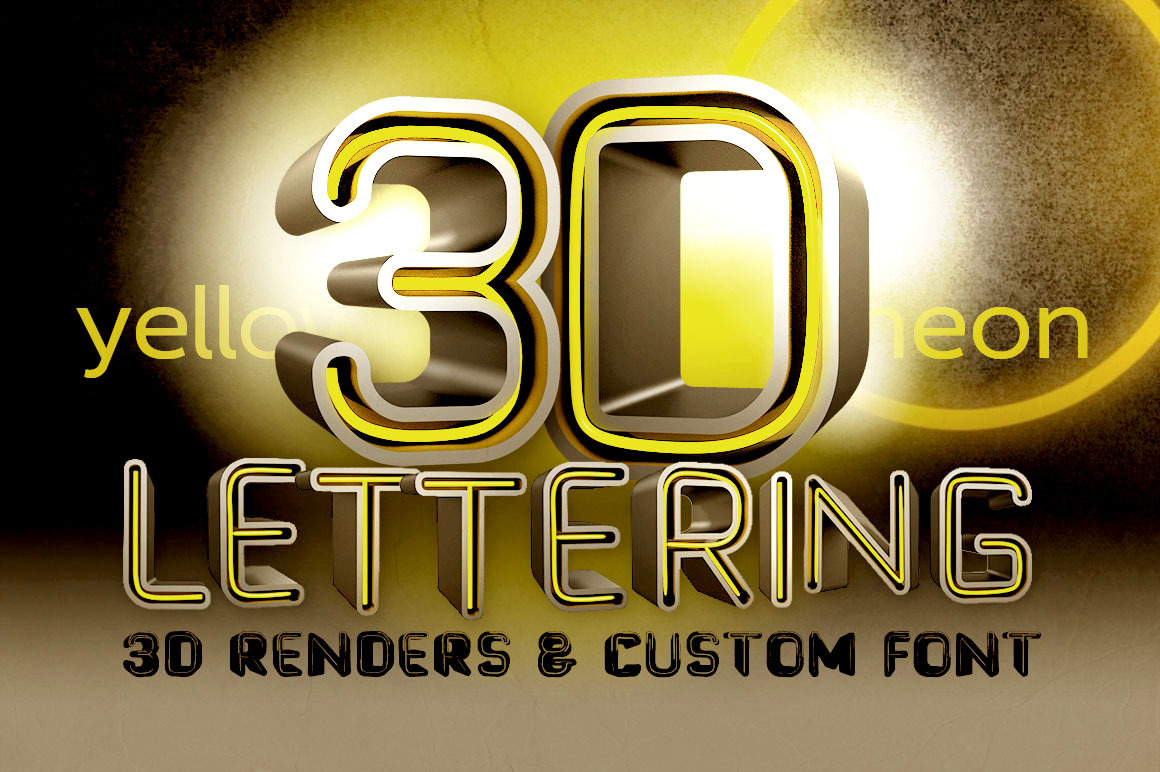
Yellow Neon - 3D Lettering + Font
Hi-res 3D futuristic neon letter renders (2500x2500, 300dpi - size of letters around 1300x1500 pixels). Great for your headers or print projects. Custom font also included!